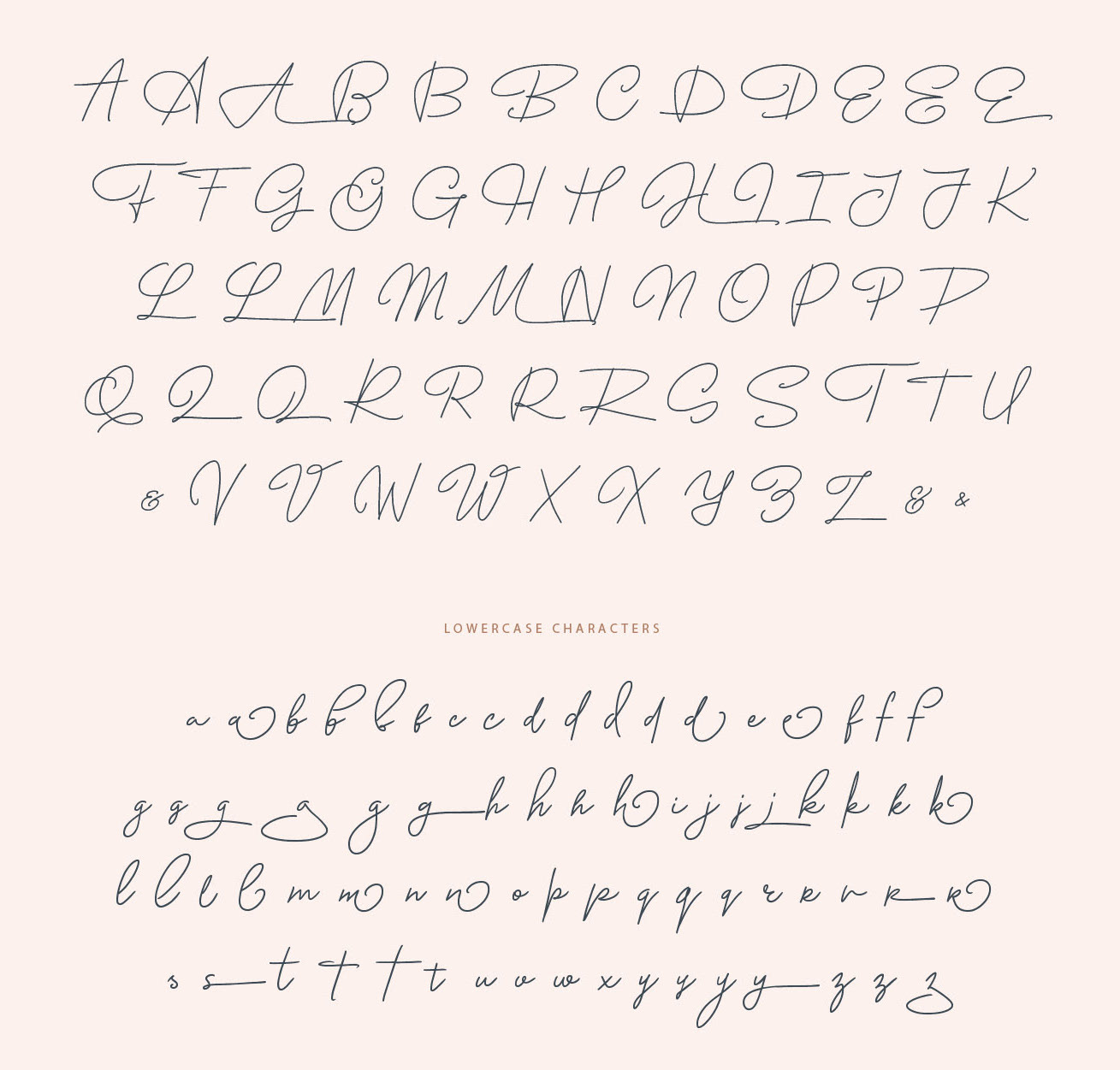
Aurora Type Co [Andrey Sharonov]
Donetsk and Kiev, Ukraine-based designer of the bubblegum / cartoon font Balloon (2015), the brush typefaces Adelina Script (2015) and Supertramp (2015), and the free signage typeface Candy (2015).
Typefaces from 2016: Americus (a weathered sign painting emulation font), Legend (Script, Serif, Sans Serif), Makers (brush), Heartland.
Typefaces from 2017: Bourbon House, Aurora Script (formal calligraphic script), Bjola (an informal children;s book font full of joie de vivre).
Typefaces from 2018: Gastro Kultura (handcrafted).
Typefaces from 2019: Amoresa (a vintage calligraphic script), Special Place Script, Palmer Sans, Bonita Melodia.
Typefaces from 2020: Migura Sans (an 8-style fashion mag sans), Delirian (a calligraphic script).
Typefaces from 2021: Reika (a soft signage script), AS Palmer (a retro script), Acris (a stylish typeface with Cruella-style long fingernails).
Typefaces from 2022: Brokson (a vintage set of fonts that includes signage scripts and serif fonts).